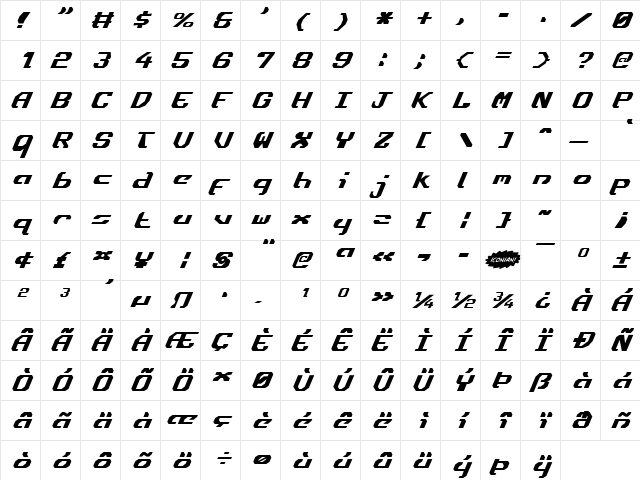
Ensign Flandry Italic Italic
Design Context for Ensign Flandry Italic Typeface
Ensign Flandry Italic offers clean, dependable letterforms without strong stylistic allegiance, making it a practical choice for designers who need flexibility. The slanted form adds forward momentum and visual energy.
Pro Tip: Try Ensign Flandry Italic for annotation and caption copy alongside an upright companion — the contrast in angle creates a dynamic but ordered typographic system.